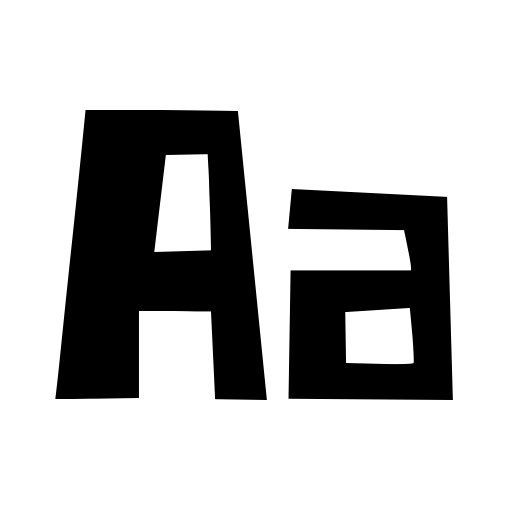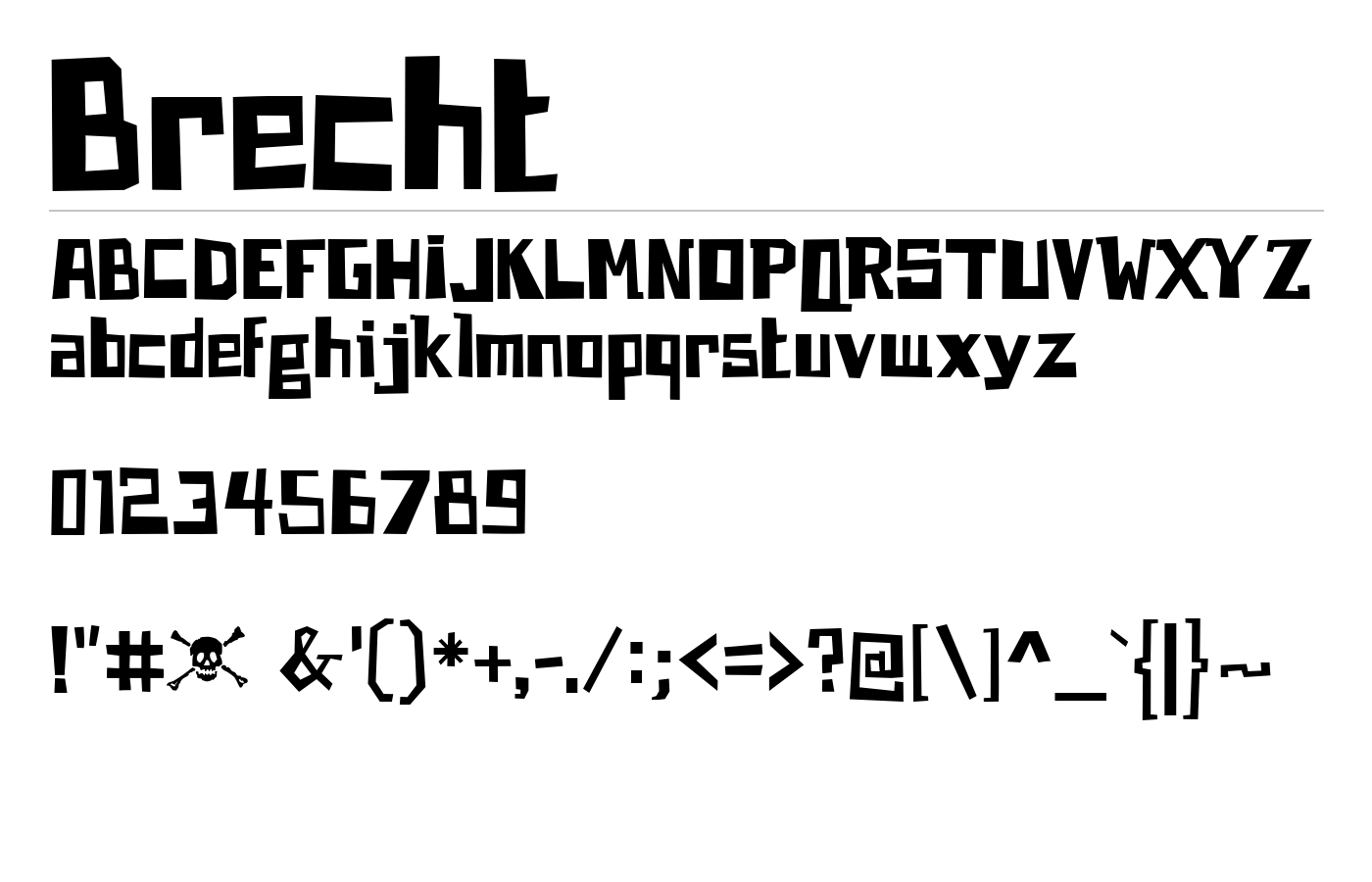
Brecht is a quirky, bold sans serif font with irregular, slightly playful letterforms that give it a handcrafted, informal feel. Its sturdy weight and condensed width make it eye-catching and perfect for headlines or creative projects that want to convey uniqueness and a bit of whimsy. This font works well for posters, logos, and branding that aim to stand out with a fun yet strong personality.
Brecht Font
About Brecht Font
| Designer | Daniel Leal Werneck |